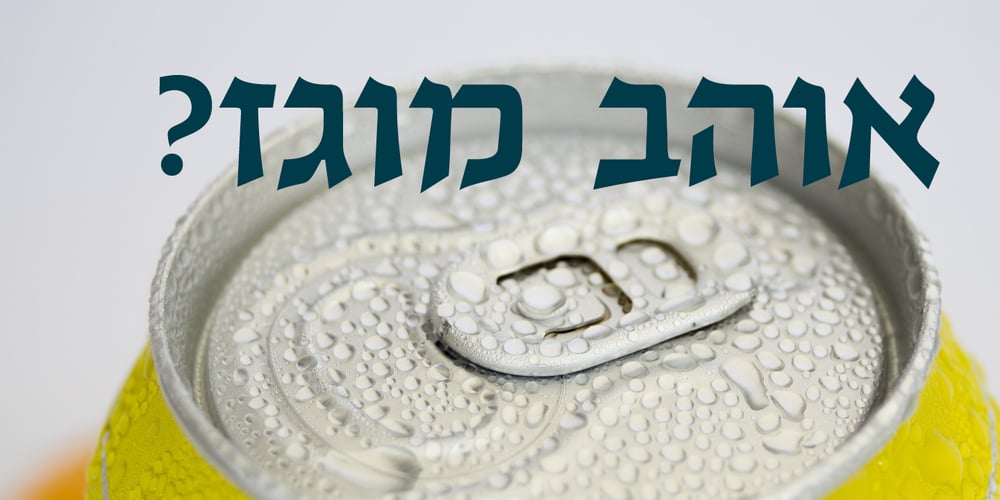
Mana Hama MF Font Family was designed by Eliyahu Fried and published by Masterfont. Mana Hama MF contains 1 styles and family package options. It is a modern, slightly extended serif typeface with sharp endings that provide a unique aesthetic touch without losing its legibility.